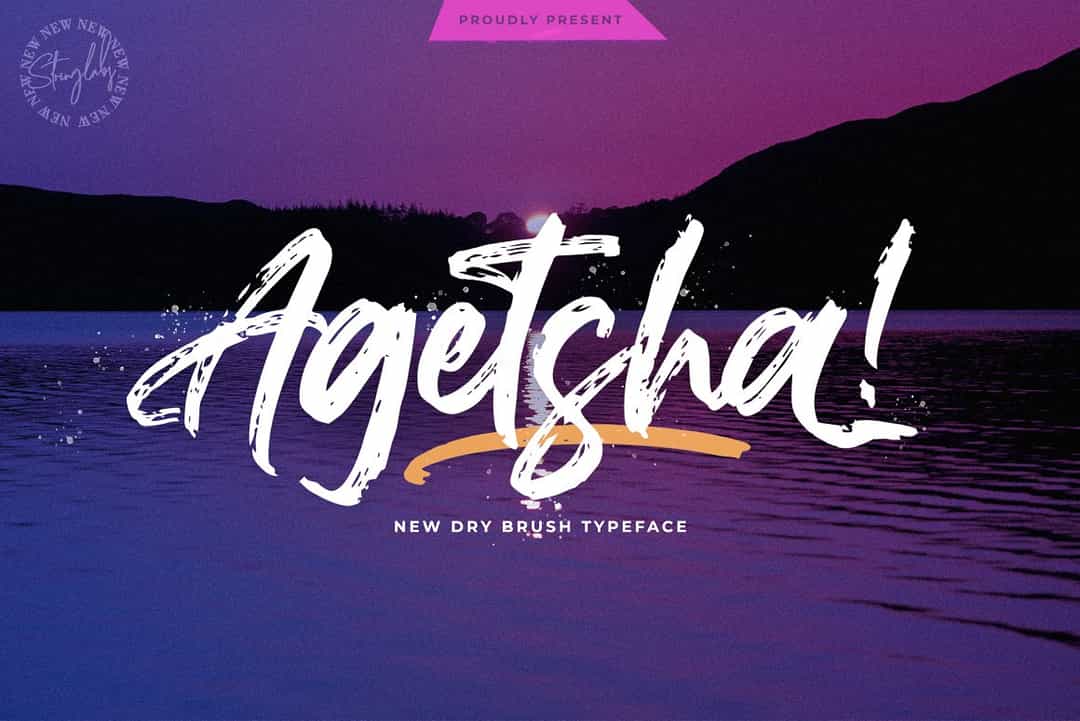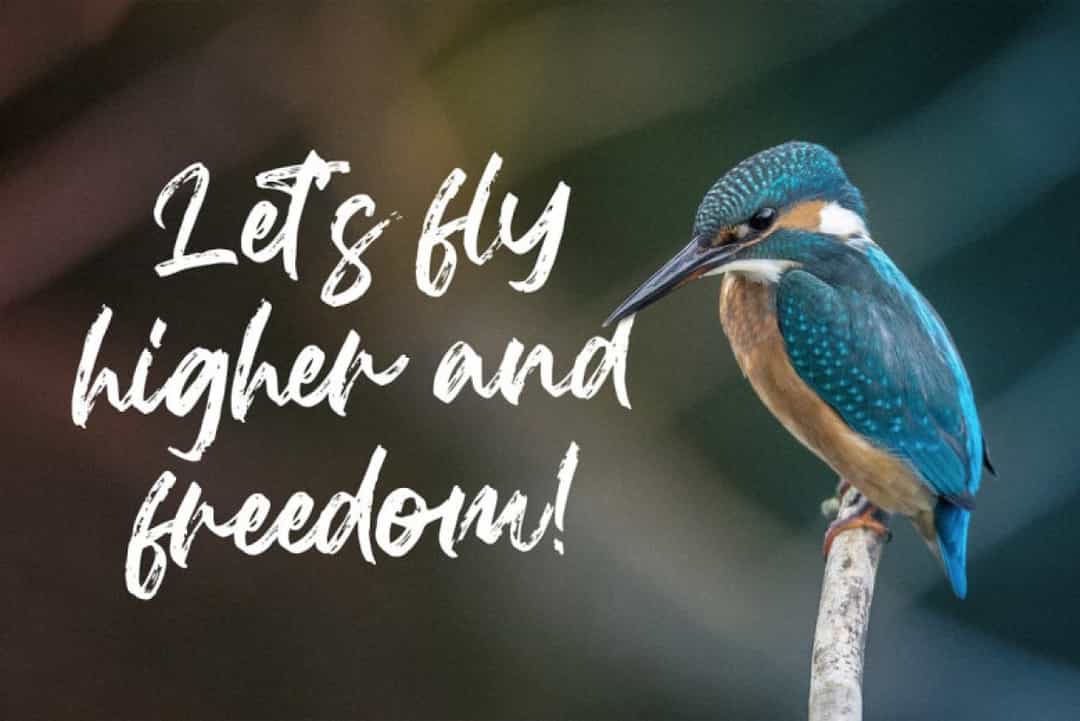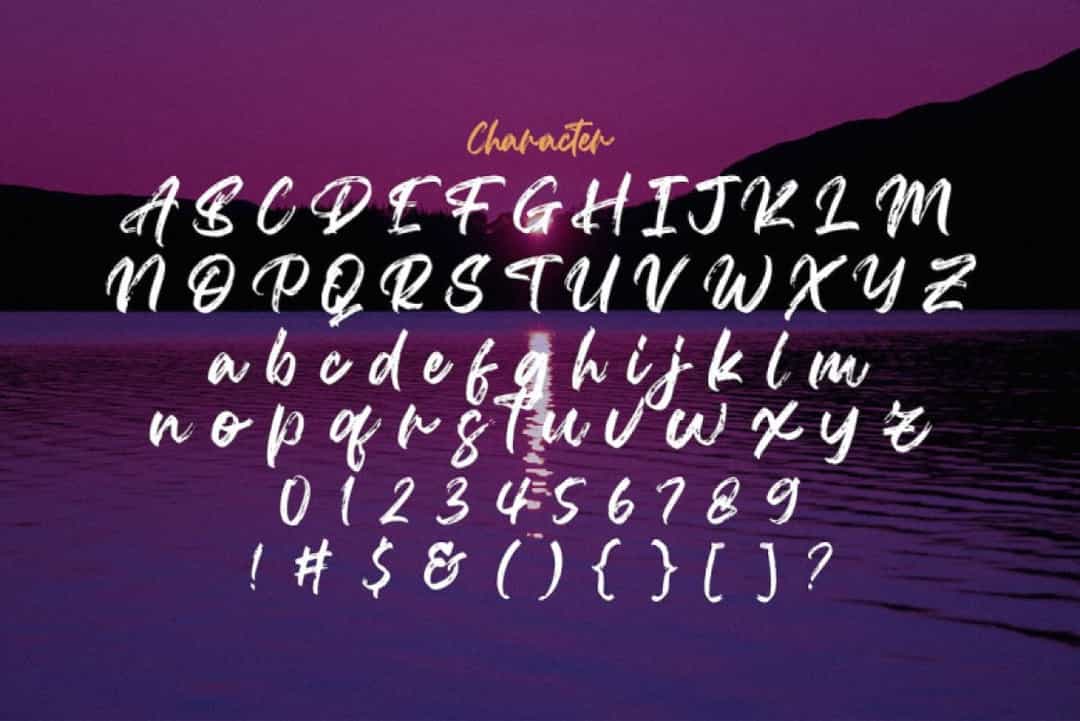
Discover Agethsa Font, part of the Brush collection—a versatile and unique font perfect for adding a personal touch to your projects. Download it for free and enjoy crafting designs with style, from invitations to social media posts. This font is available exclusively for personal use, giving you the freedom to create without limits. Unlock your creativity with Agethsa Font today!
Agethsa Font by StringLabs is an elegant hand-drawn brush script typeface with an eye-catching style, designed by stringLabs with sophisticated yet attractive concepts in mind. Perfect for logos, branding projects wedding designs advertising media posts packaging of products label designs photography watermarks stationary invitation stationary watermark stationary and any task that requires handwritten dishes it makes an outstanding addition.